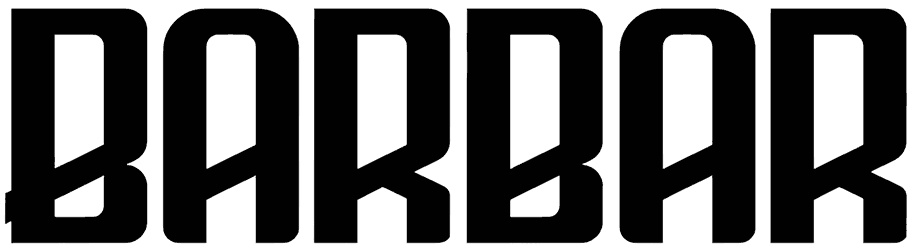
Barbar Font
Barbar font is suitable for Art Deco and casino designs. The middle lines of the letters are lower than usual and diagonally designed, so this 80s and 90s font can be used for vertical designs.